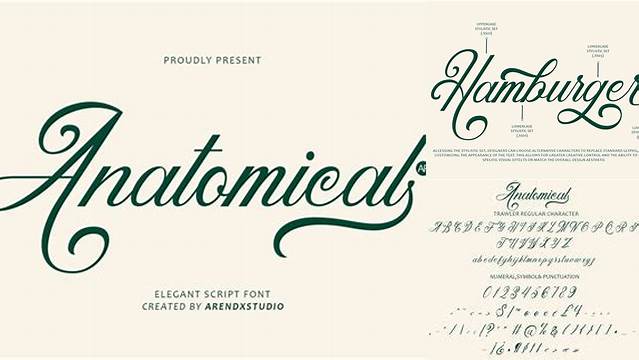
Hey guys! Are you on the hunt for a font that screams elegance and sophistication? Look no further! This article is your ultimate guide to the Anatomical Elegant Script Font, a beautiful typeface that's perfect for a variety of projects. From wedding invitations to branding materials, this font adds a touch of class that's hard to beat. And the best part? You can get it for free! We'll dive into where to download it, how to use it, and some cool tips to make your designs pop. So, let's get started! Are you ready to elevate your design game?
What Makes the Anatomical Elegant Script Font Special?
Alright, let's talk about why the Anatomical Elegant Script Font is so special. First off, its design is just gorgeous. The font is characterized by flowing lines, graceful curves, and a touch of vintage charm. It's a script font, meaning it mimics handwriting, but with a level of refinement that you don't always find in other script fonts. The font's design suggests a sense of luxury and high quality. It’s ideal for projects where you want to convey a sense of timelessness, elegance, and sophistication. Imagine it on your wedding invitations, giving that perfect classic and romantic feel. Or, envision it on your brand's logo. Its elegant feel can help attract the right clients or customers, especially in businesses looking for a high-end feel. The versatility of the font makes it very appealing for designers. You can use it for a variety of projects, giving each a unique touch. From creating beautiful quotes on social media to designing stunning greeting cards, this font allows you to express your creative vision. The Anatomical Elegant Script Font can easily be incorporated into your design, adding a visual appeal that will capture your audience's attention. When you use this font, the words are not just letters; they become an art piece. They convey the message, and the art of the font helps convey the tone you wish to deliver. Furthermore, the font comes with different style options. You can play with the options available and select the one that perfectly fits your design project. This flexibility is what sets this font apart, enabling you to customize your design to your specific needs. Plus, it is free to download, which gives you access to a high-quality font without breaking the bank! And let's be honest, who doesn't love freebies? This font provides you with both quality and affordability, opening up a world of design possibilities. It's a perfect choice for designers and businesses looking to make a lasting impression without spending a fortune.
Core Characteristics and Design Features
- Flowing Script: One of the most defining features of the Anatomical Elegant Script Font is its flowing script. The letters connect beautifully, creating a seamless and elegant look. This feature is what gives the font its signature charm and makes it perfect for adding a touch of sophistication to any design.
- Classic Aesthetic: The font has a classic aesthetic. The style will never go out of fashion. It adds a timeless feel to your projects. This makes it ideal for designs that need to convey a sense of tradition, quality, or history.
- Versatile Usage: The versatility of the Anatomical Elegant Script Font allows you to use it in a variety of design projects. Its elegance makes it a great choice for projects like wedding invitations, branding, and social media graphics.
- High-Quality Design: This font is well-crafted, with attention to detail. The design ensures that each letter is visually appealing and complements the others. This level of quality distinguishes it from many other script fonts.
How to Use the Anatomical Elegant Script Font in Your Designs
Alright, now that you've got the font, let's get creative! The Anatomical Elegant Script Font is super versatile, so you can use it in a bunch of different ways to make your designs stand out. It's great for headings, quotes, signatures, or even a touch of flair in your body text (though maybe not too much of that!). Here are a few ideas to get your creative juices flowing.
- Wedding Invitations and Stationery: This font is the perfect choice for adding a touch of romance and elegance to your wedding stationery. Use it on invitations, RSVP cards, and thank-you notes. It will create a cohesive and beautiful theme for the wedding.
Conclusion: Embrace Elegance with the Anatomical Elegant Script Font
So there you have it, guys! The Anatomical Elegant Script Font is a stunning font that can add a touch of class to any design project. From wedding invitations to branding materials, its elegant and flowing script makes it a great choice. Remember to download it from a trusted source, follow the installation instructions, and pair it with other fonts to create a balanced design. Avoid common mistakes like overuse and poor contrast, and always proofread your text. Also, feel free to experiment with alternative fonts to find what works best for your project. Now get out there and start creating some beautiful designs! Happy designing!